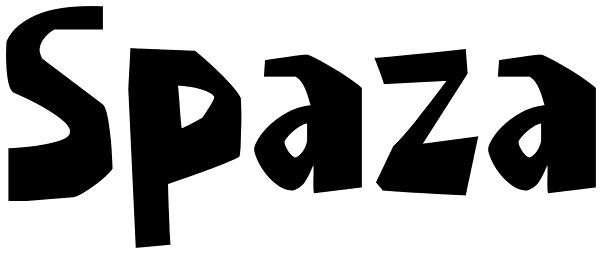
Spaza
In parts of Africa, in the poorer, rural and peri-urban areas there are many small shops or convenience stores which are called "Spaza" shops. The owners of these shops often don't have access to commercial signwriting and write their signs...
Spaza